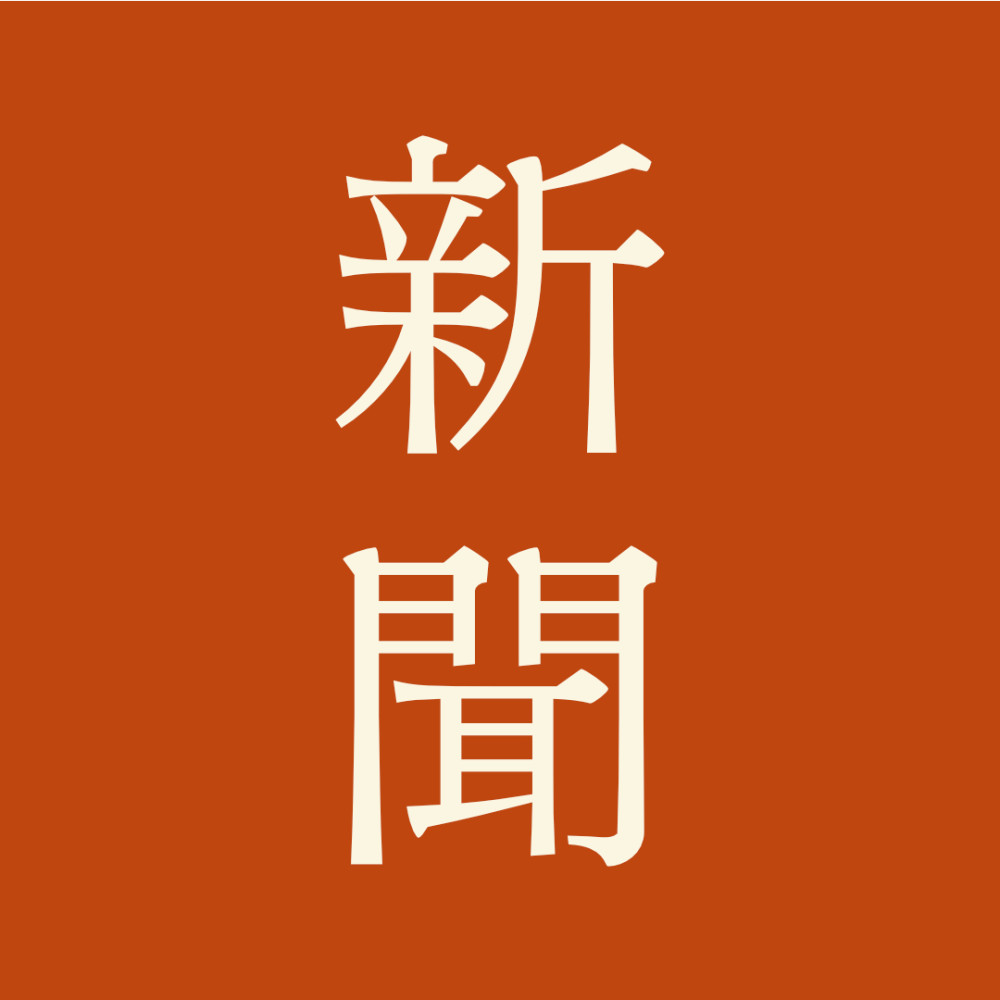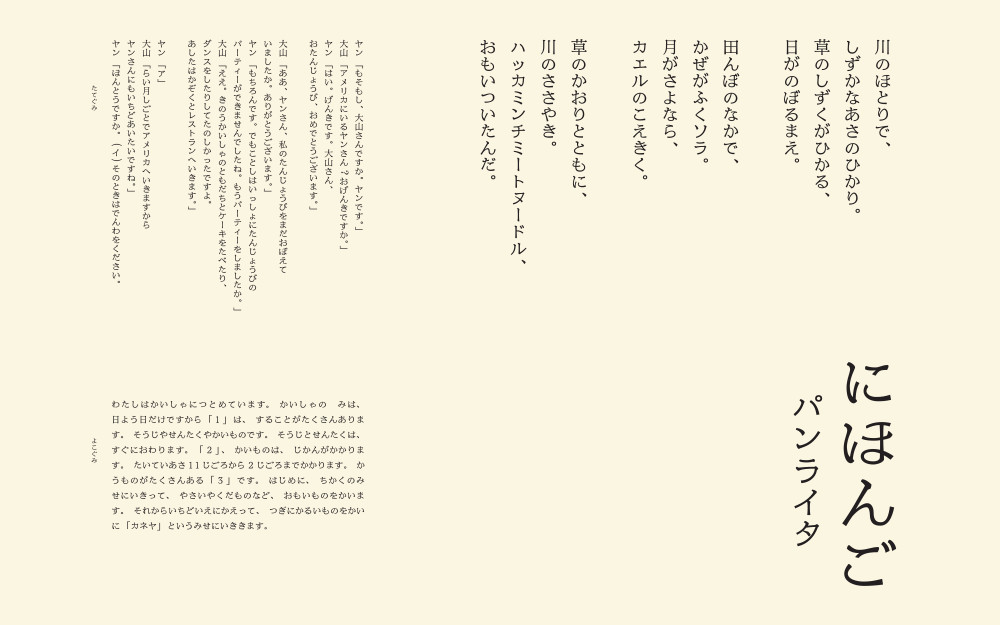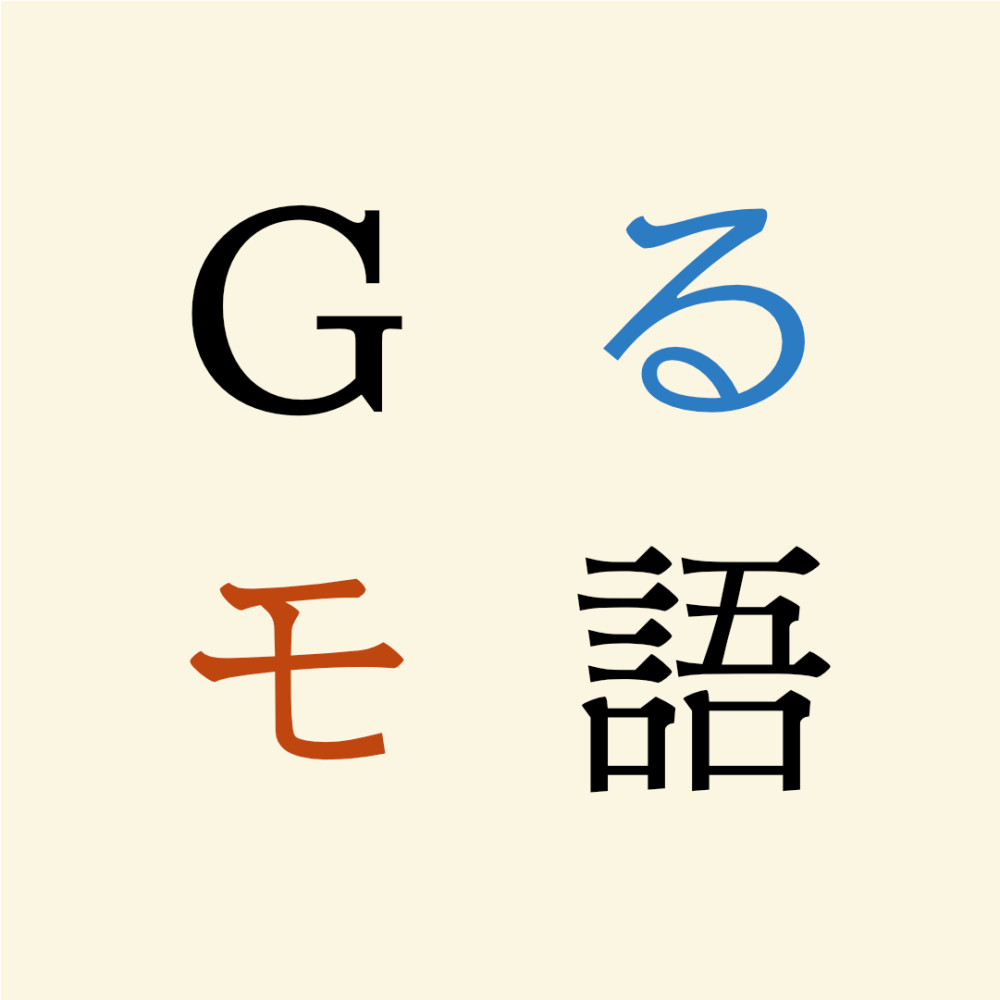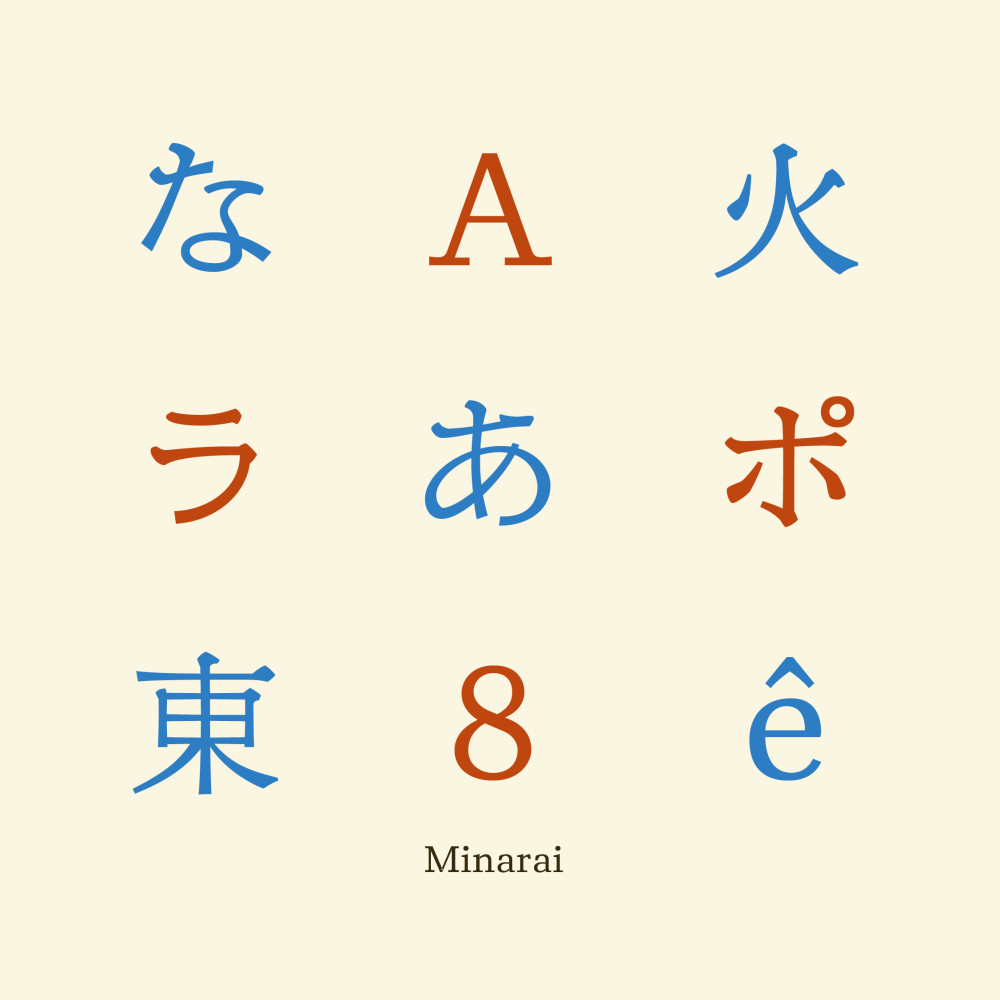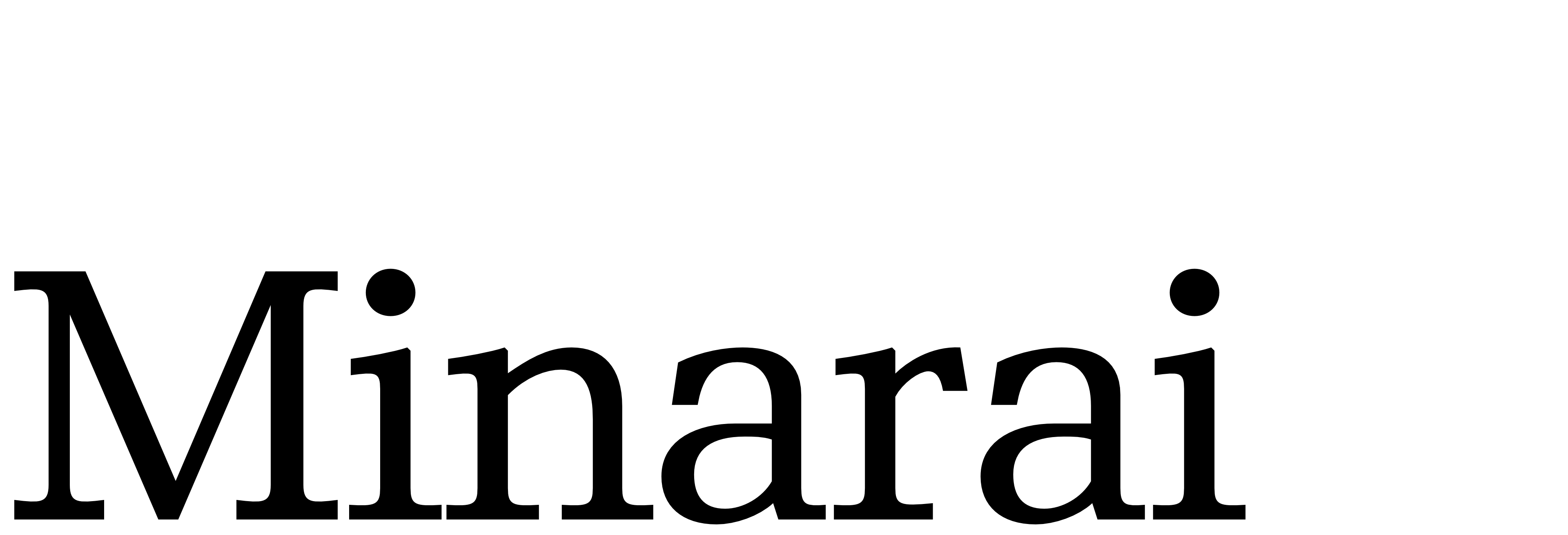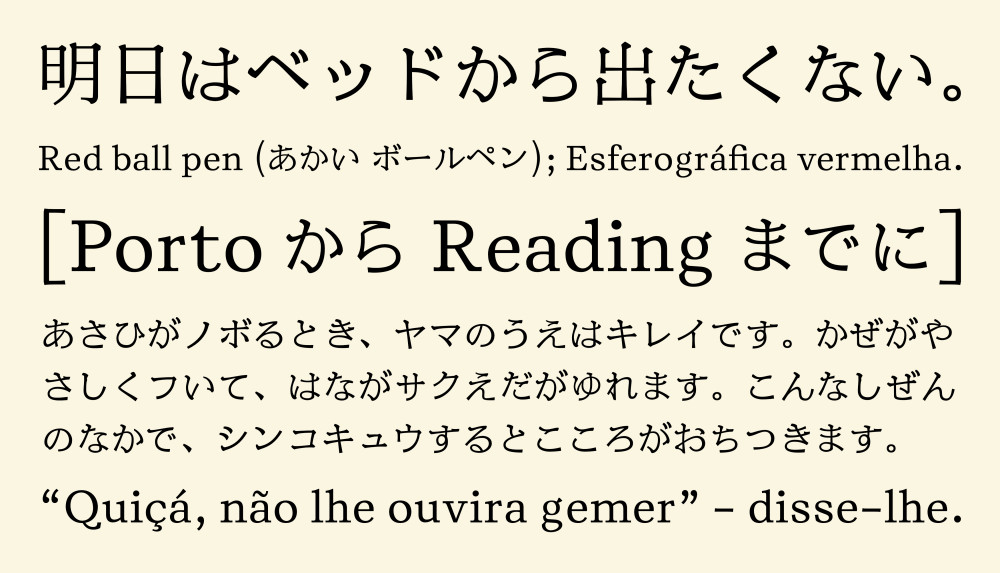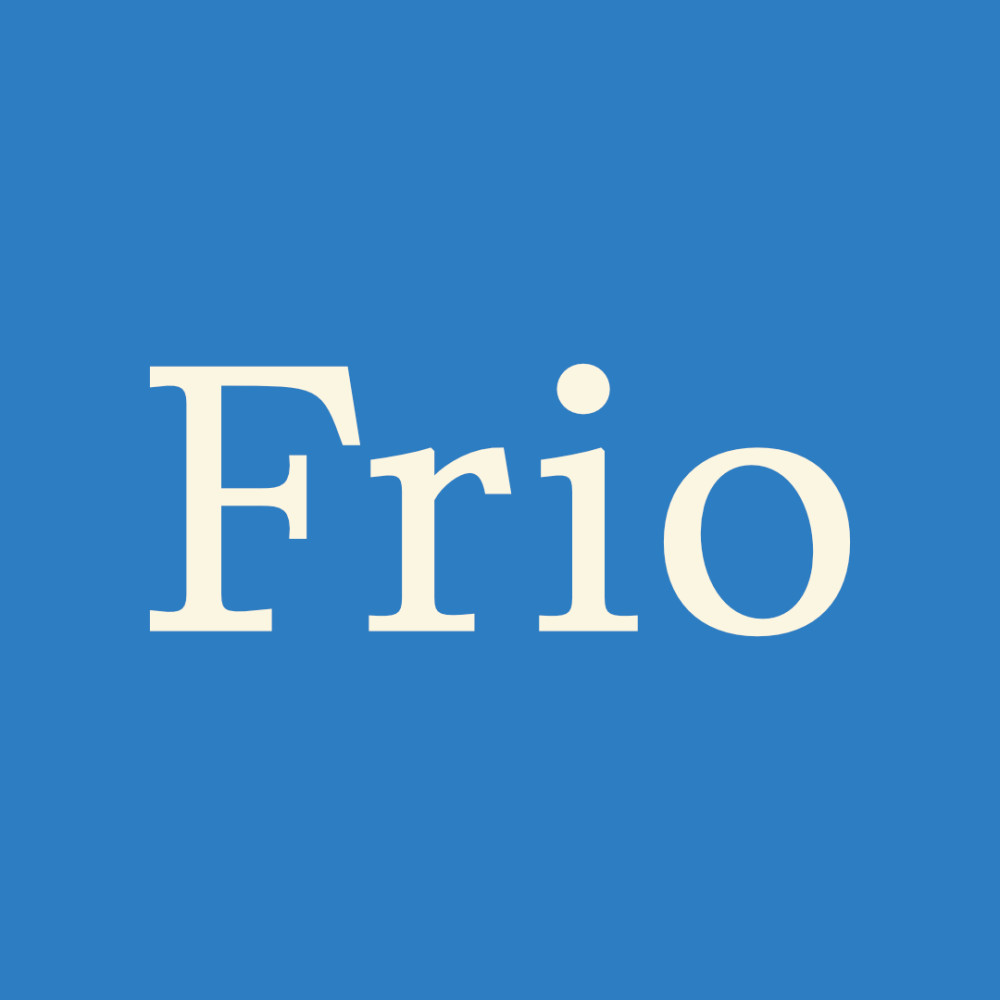
Minarai is a 27-year-old van-life reporter travelling across the countryside while co-running an indie magazine on vintage technology.
Life on the road moves at a slower pace—so does this reporter’s work. Equipped with an old typewriter and a film camera, they spend their days immersed in the slow, deliberate processes of researching, typing, bookbinding, and developing black-and-white film. They also carry a small selection of secondhand books and well-loved fairytales, each one read multiple times.
Minarai dreams of one day being cast as a metal fount for typewriters, used by low-budget, monochromatic newspapers. Until then, they find comfort on the pages of both printed and digital language manuals and dictionaries.
Fun fact: Minarai uses their grandpa’s fountain pen to handwrite the serial number of each of their magazine issue.